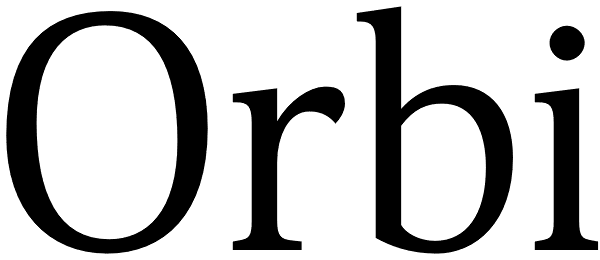
Orbi
The Orbi type system is a low contrast antiqua of elegant design with a well developed set of members. It consists of 10 roman and italic faces of different proportions and weights and 3 decorative calligraphic fonts. It also contains 3 additional...